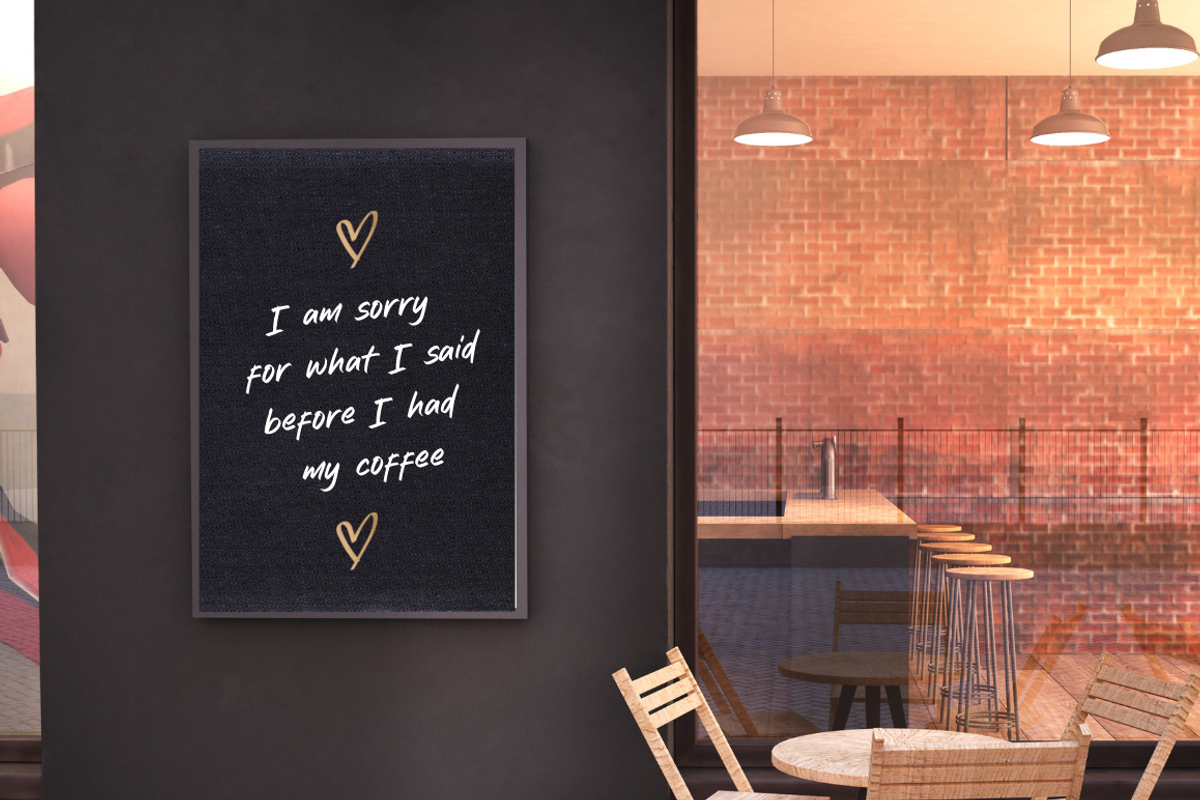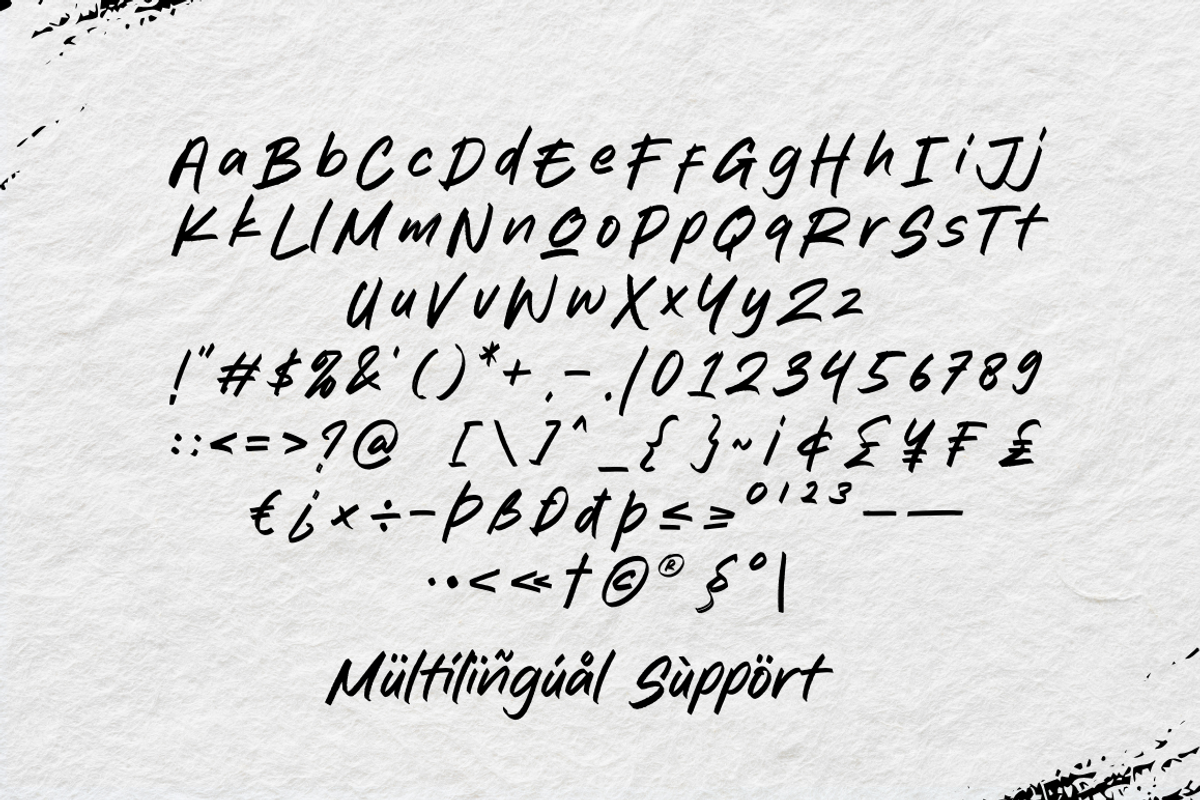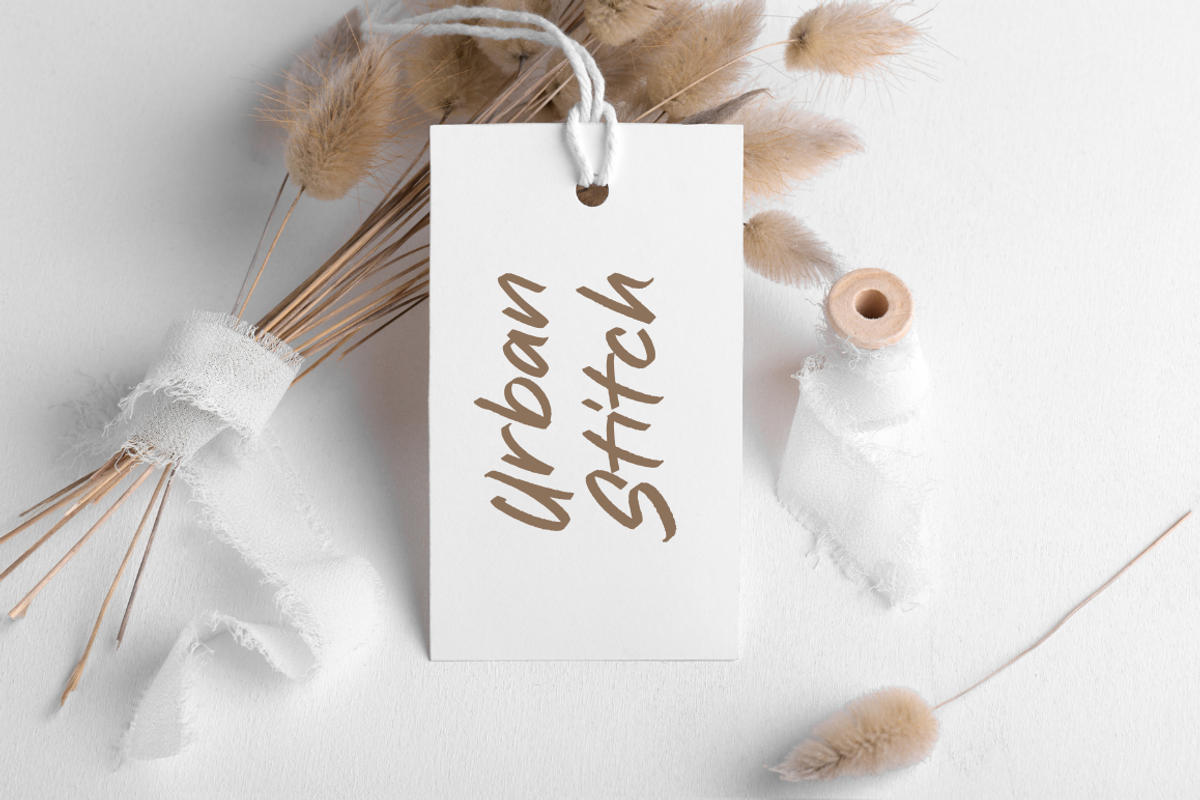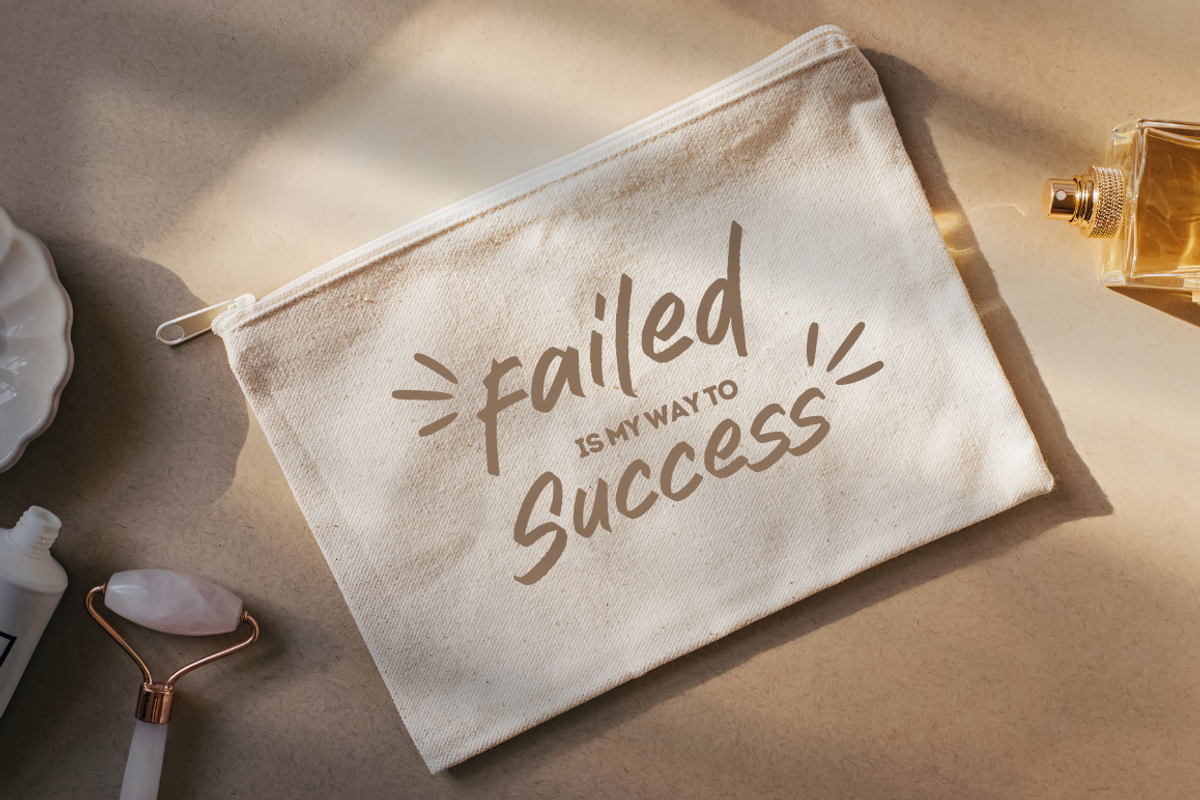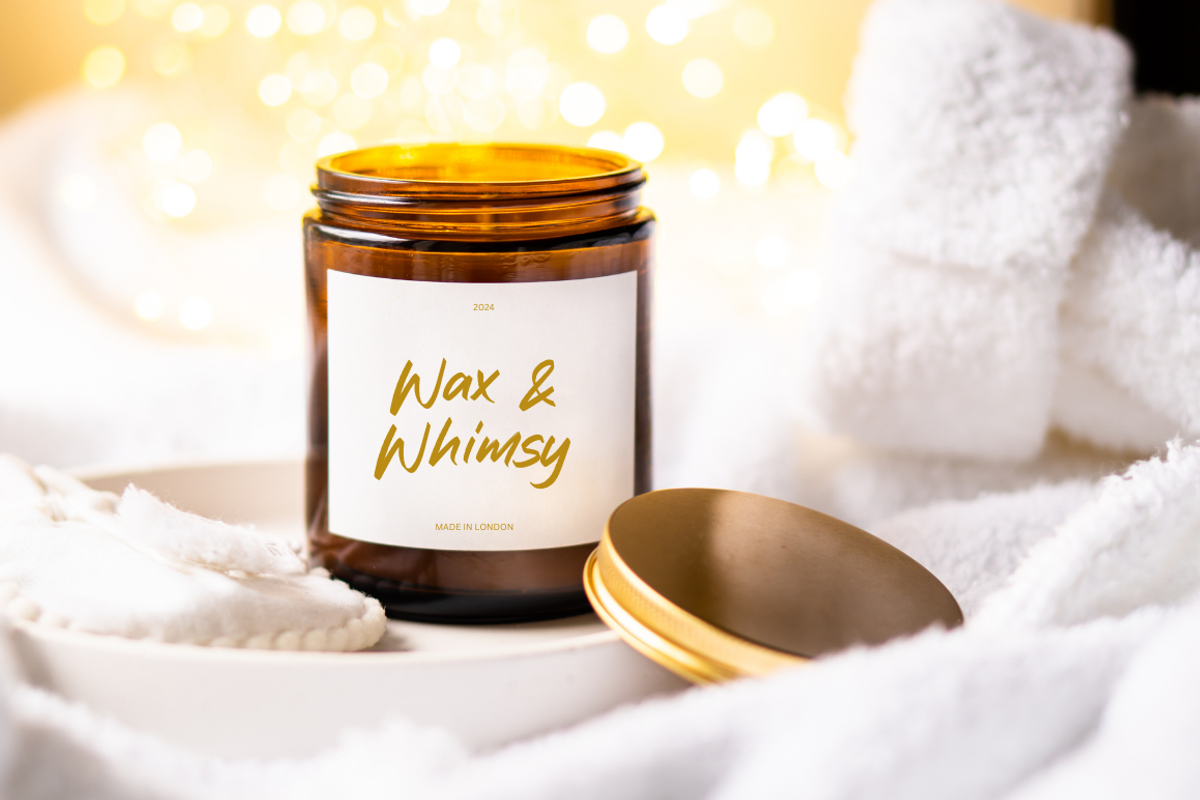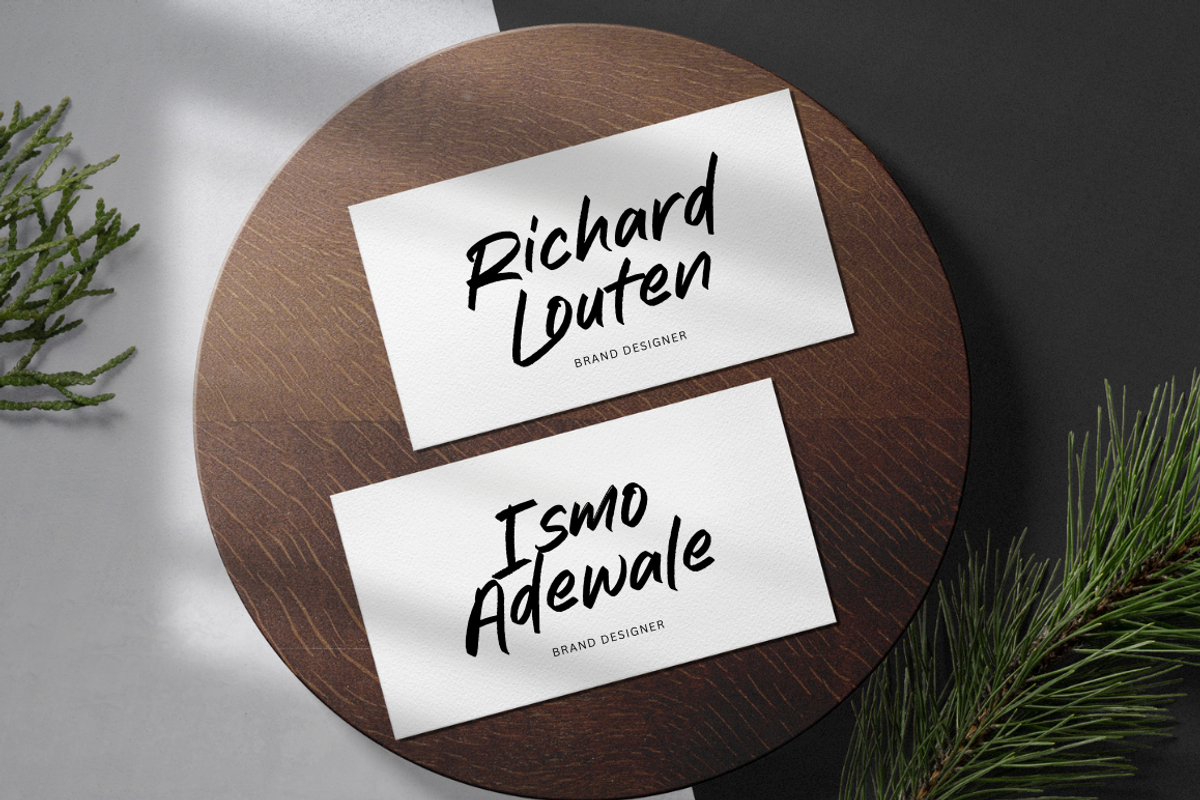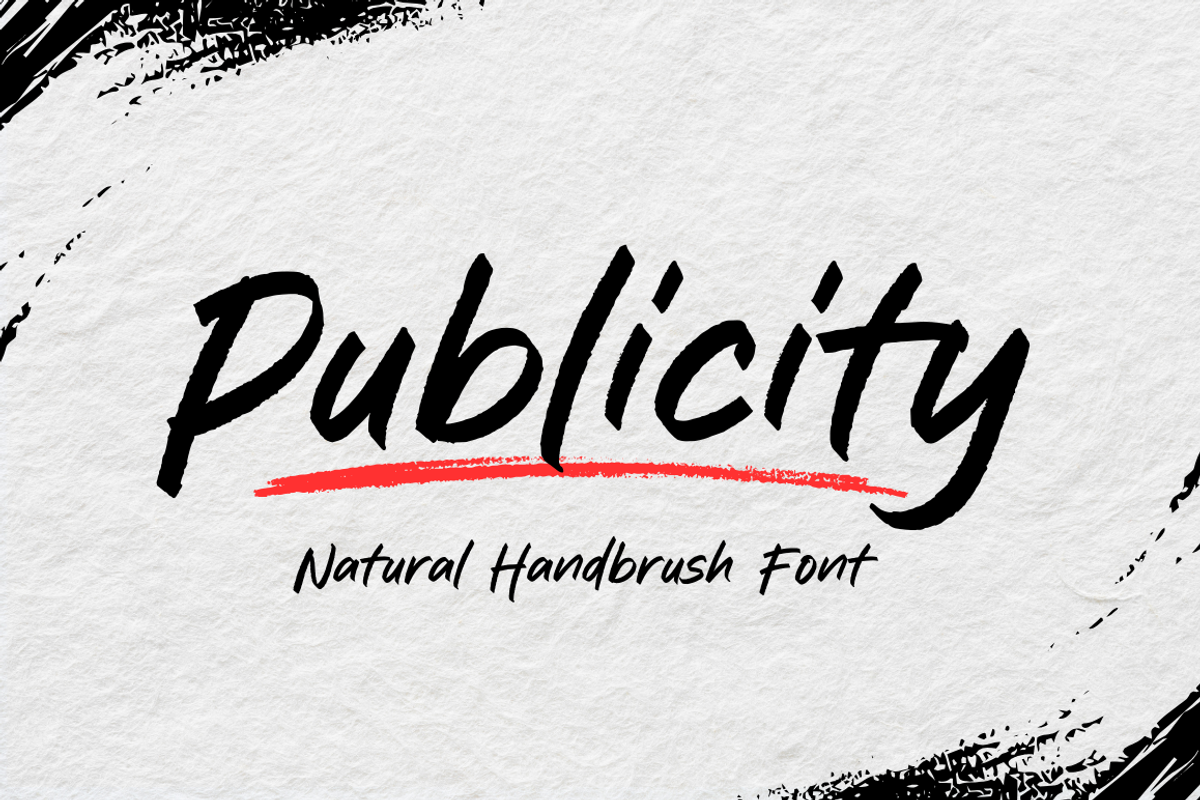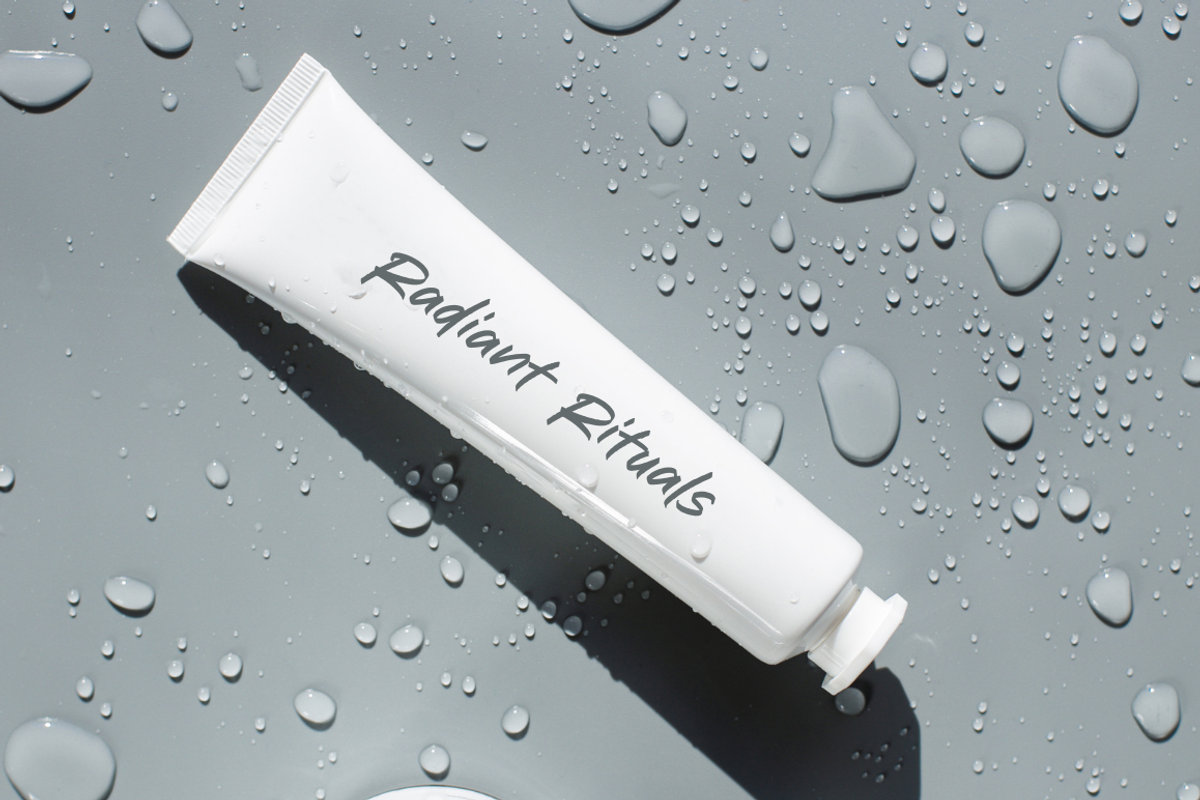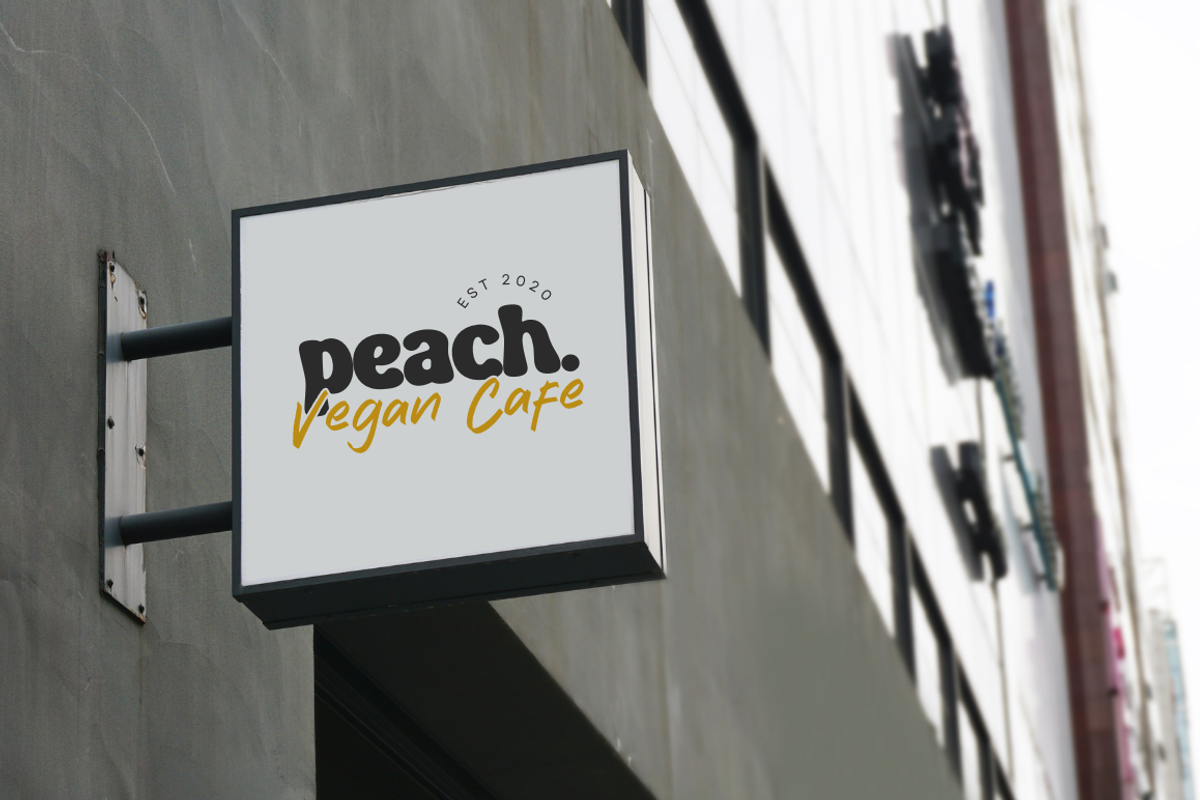
Publicity Brush Font
Publicity Brush is a dynamic handbrush font with bold, textured strokes that exude energy and creativity. Perfect for eye-catching posters, branding, and headlines, it adds a raw, artistic touch to any design. Make a bold statement with Publicity Brush!